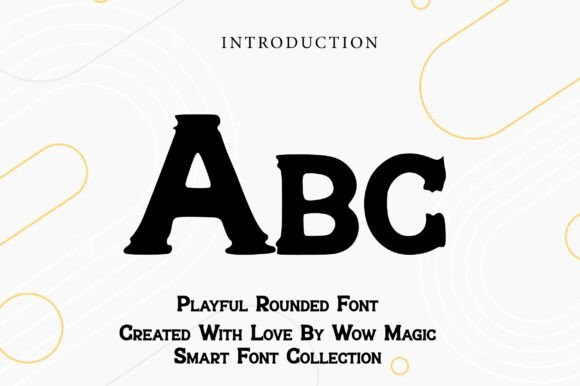
Introducing Exaggerated Ink Trap Font: Elevate Your Designs with Bold, Stylish Typography
In the world of typography, a well-crafted font can make all the difference in elevating your design from ordinary to extraordinary. If you’re a designer or crafter looking to add a touch of personality and visual impact to your work, look no further than the Exaggerated Ink Trap Font. This powerful display serif typeface is designed to turn heads with its striking, exaggerated ink trap details that add a bold, stylish, and memorable appearance to any design.
What is Exaggerated Ink Trap Font?
Exaggerated Ink Trap is a carefully crafted display serif typeface that features striking, exaggerated ink trap details. These decorative elements are designed to add a touch of elegance and sophistication to your typography, making it perfect for headlines, logos, posters, branding, editorial layouts, packaging, and apparel designs. The strong letterforms and decorative ink trap shapes of this font work together to create a bold, stylish, and memorable appearance that is sure to leave a lasting impression.
Key Features of Exaggerated Ink Trap Font
- Exaggerated Ink Trap Details: The font’s striking ink trap details add a touch of personality and visual impact to your typography, making it perfect for designs that need to stand out.
- Strong Letterforms: The font’s strong letterforms provide a solid foundation for your typography, ensuring that your message is clear and easy to read.
- Display Serif Typeface: The font’s display serif design makes it perfect for headlines, titles, and other display text.
- Versatile: The font is versatile and can be used for a wide range of design applications, including branding, editorial layouts, packaging, and apparel designs.
Use Cases for Exaggerated Ink Trap Font
Exaggerated Ink Trap Font is perfect for designers and crafters who want to add a touch of personality and visual impact to their work. Here are some use cases where this font truly shines:
- Headlines and Titles: Use Exaggerated Ink Trap Font to create bold, eye-catching headlines and titles that grab attention.
- Logo Design: The font’s strong letterforms and decorative ink trap shapes make it perfect for logo design, providing a bold and stylish appearance.
- Posters and Flyers: Add a touch of personality and visual impact to your posters and flyers with Exaggerated Ink Trap Font.
- Branding and Identity: Use the font to create a bold and stylish brand identity that stands out from the crowd.
- Editorial Layouts: The font’s display serif design makes it perfect for editorial layouts, adding a touch of elegance and sophistication to your typography.
- Packaging and Apparel: Use Exaggerated Ink Trap Font to add a bold and stylish touch to your packaging and apparel designs.
Benefits of Using Exaggerated Ink Trap Font
Exaggerated Ink Trap Font offers a range of benefits for designers and crafters, including:
- Increased Visual Impact: The font’s striking ink trap details and strong letterforms provide a bold and stylish appearance that grabs attention.
- Improved Readability: The font’s clear and easy-to-read letterforms ensure that your message is communicated effectively.
- Enhanced Creativity: The font’s versatility and range of use cases provide endless opportunities for creative expression.
- Professional Appearance: Exaggerated Ink Trap Font adds a professional and eye-catching typographic presence to your work, elevating your design to the next level.
In conclusion, Exaggerated Ink Trap Font is a powerful display serif typeface that is perfect for designers and crafters looking to add a touch of personality and visual impact to their work. With its striking ink trap details, strong letterforms, and versatile design, this font is sure to elevate your typography and take your designs to the next level. Whether you’re designing brand identities, magazine titles, social media graphics, or creative posters, Exaggerated Ink Trap Font provides a bold, stylish, and memorable appearance that is sure to leave a lasting impression.